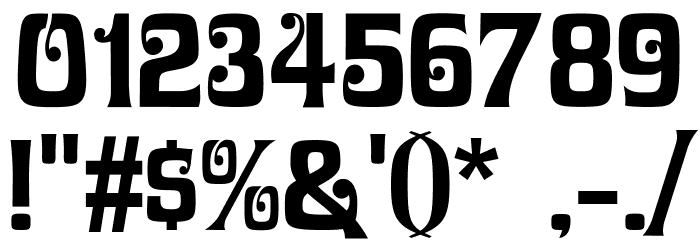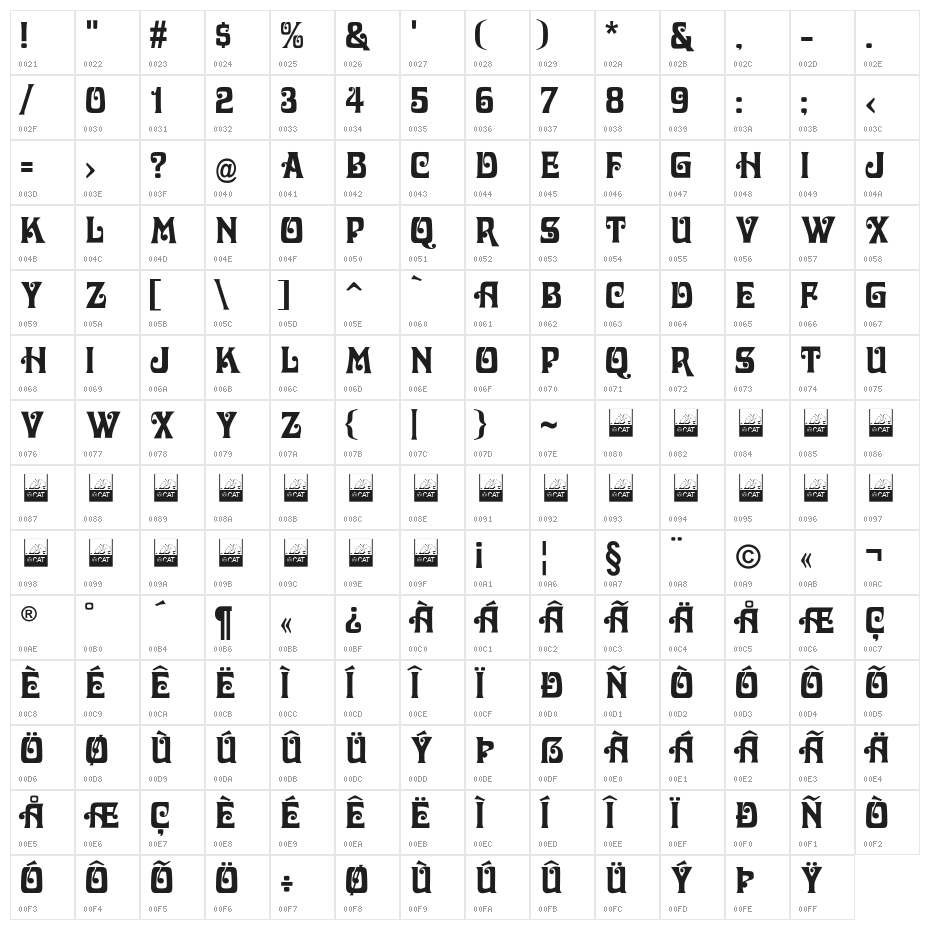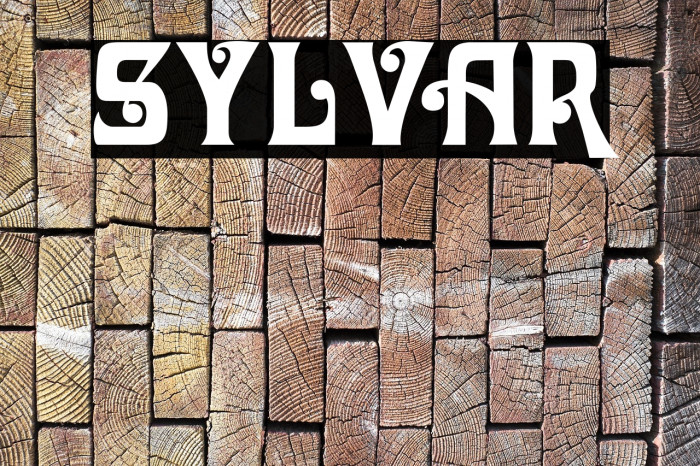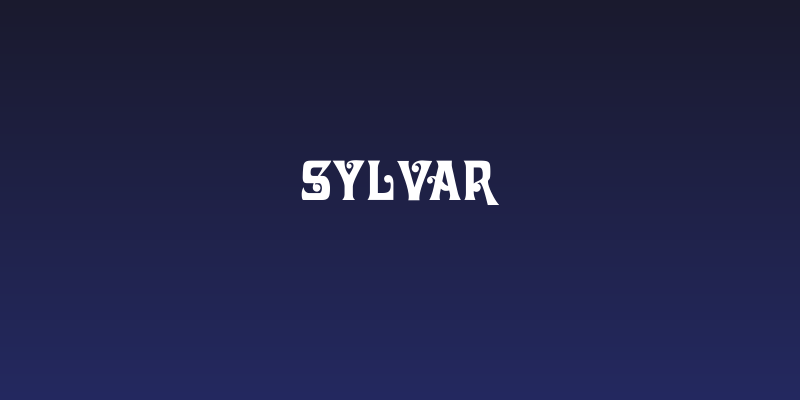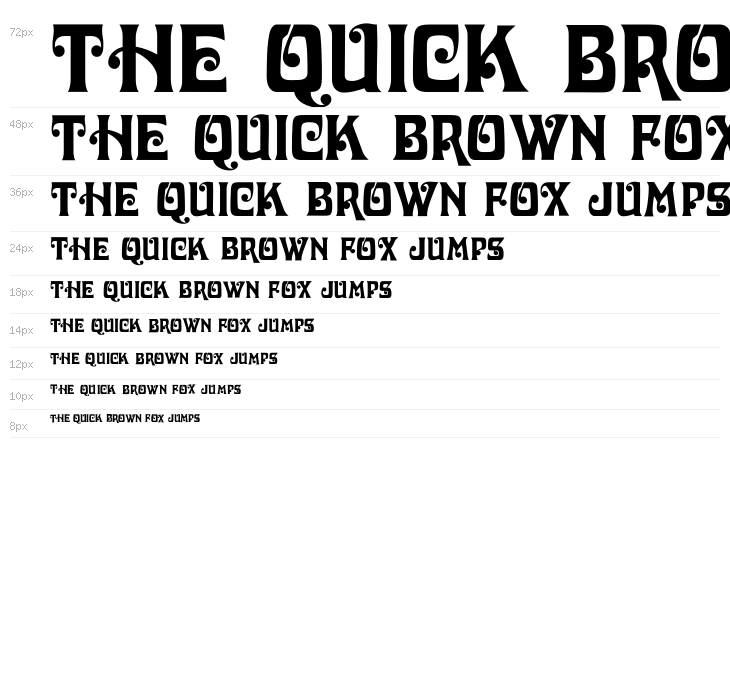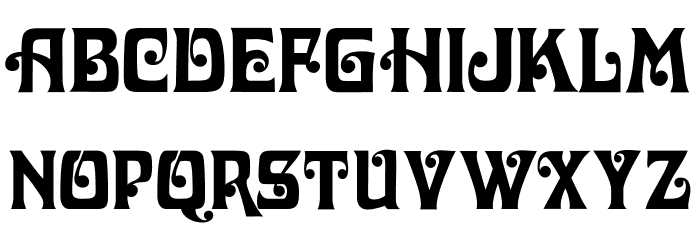
Sylvar Font
Sylvar Description
This font features a bold and decorative style with a unique flair. Each character is designed with intricate details, including sharp serifs and ornamental elements that give it a distinct personality. The uppercase letters are particularly striking, with angular shapes and embellishments that make them stand out. The lowercase letters maintain the same decorative theme, ensuring consistency throughout. Numbers and special characters are equally bold and ornate, making this font suitable for eye-catching designs. The overall appearance is both vintage and modern, combining traditional elements with a contemporary twist.
| Proposed Projects | Ideal for posters, logos, branding, and any project requiring a standout, artistic typeface. |